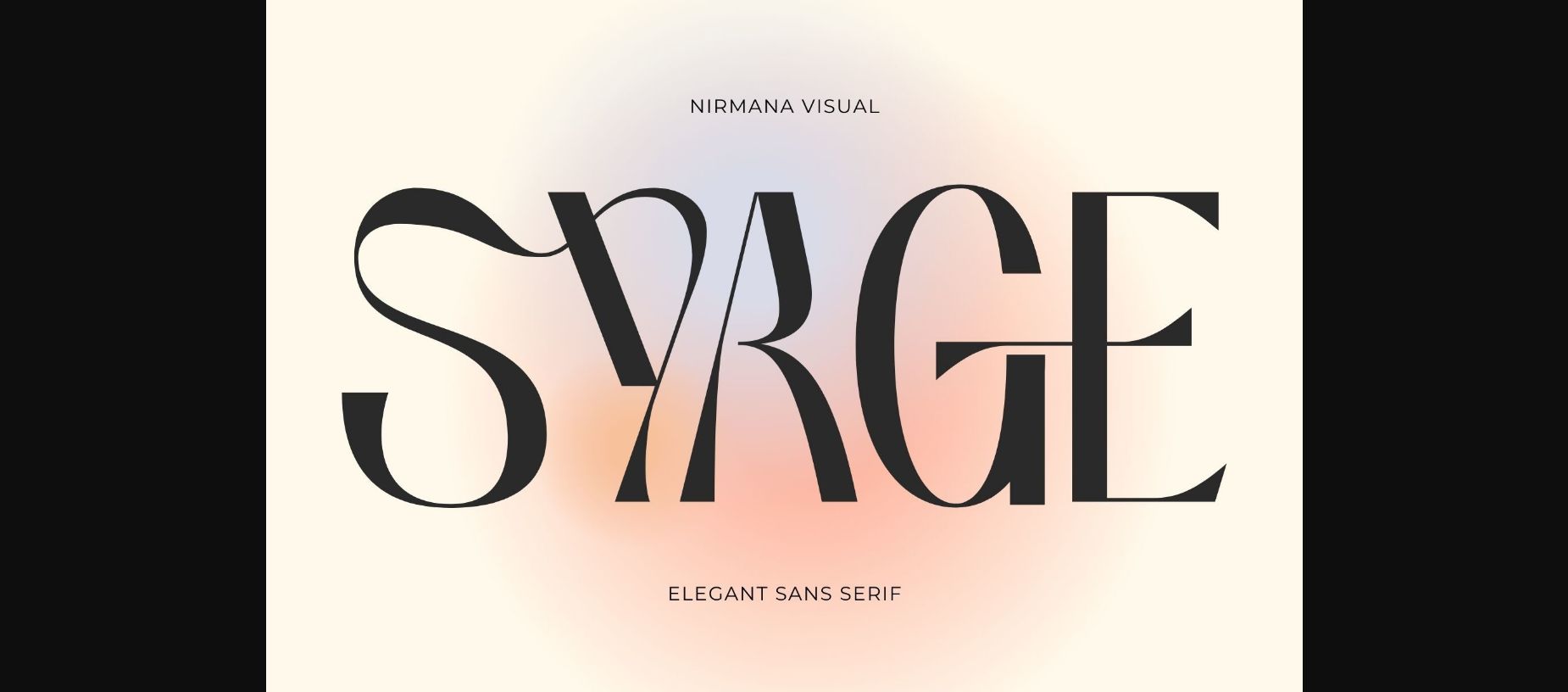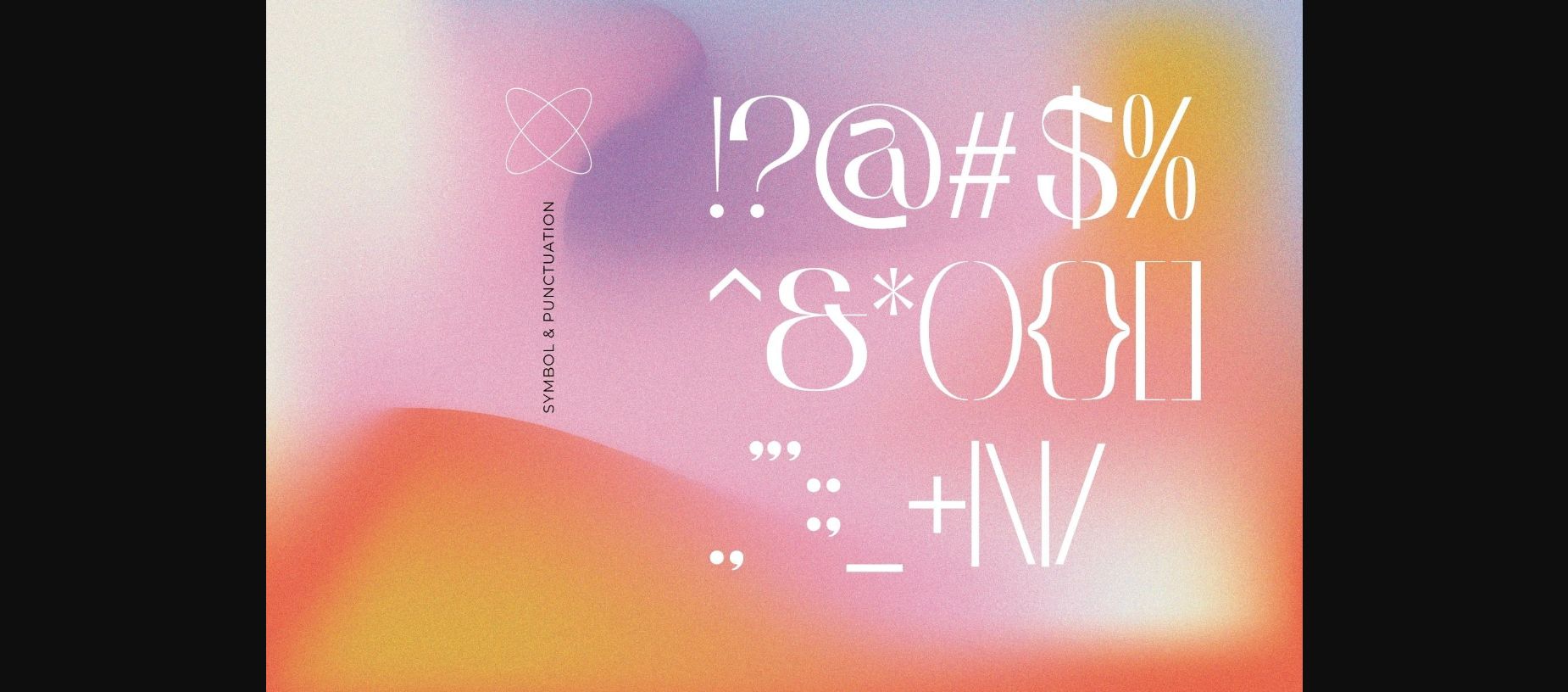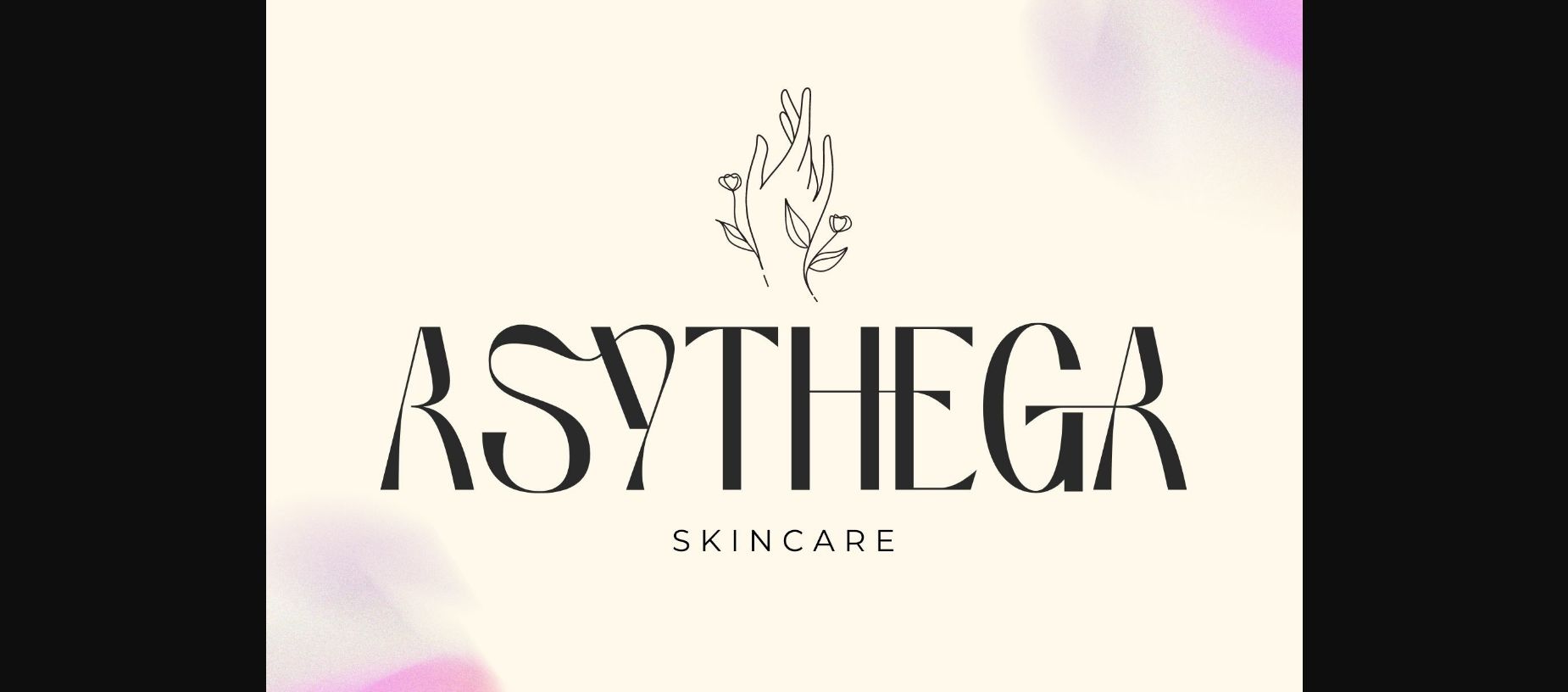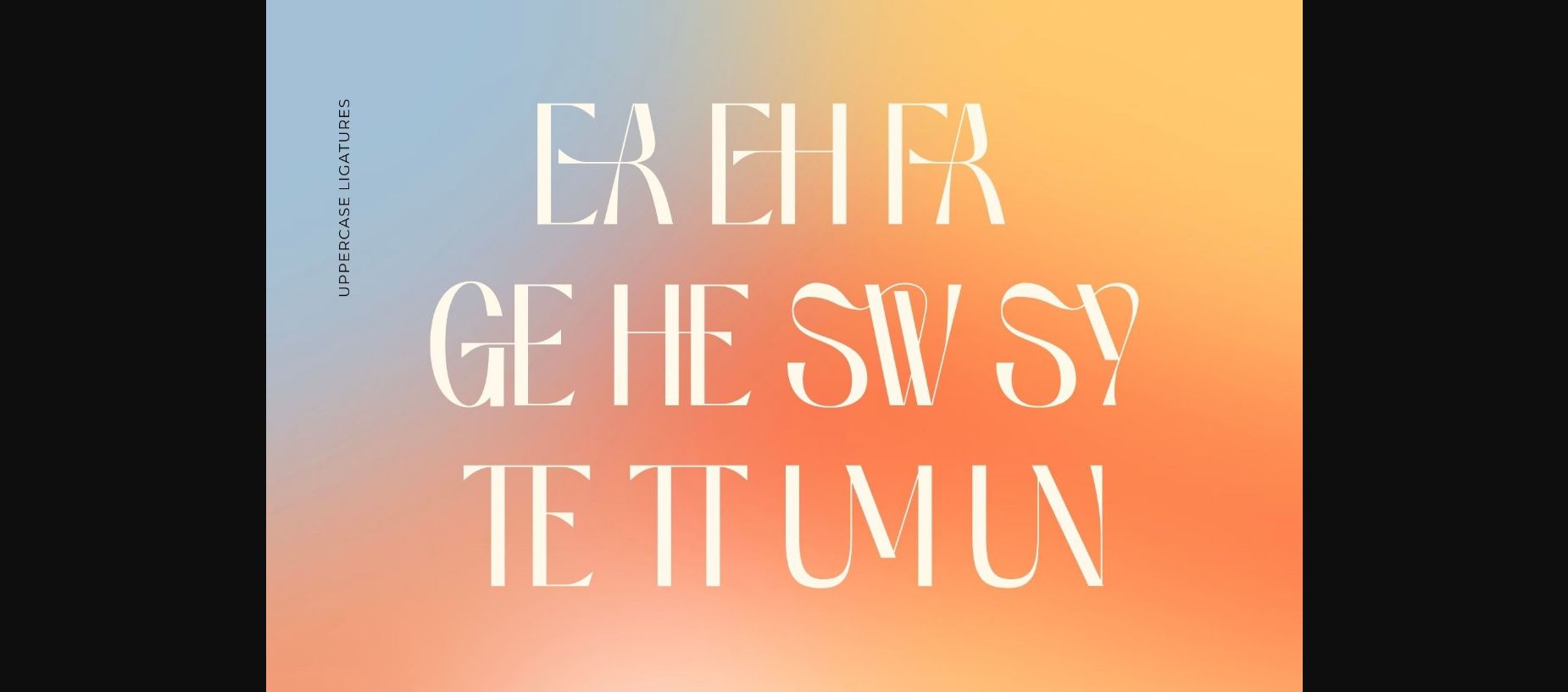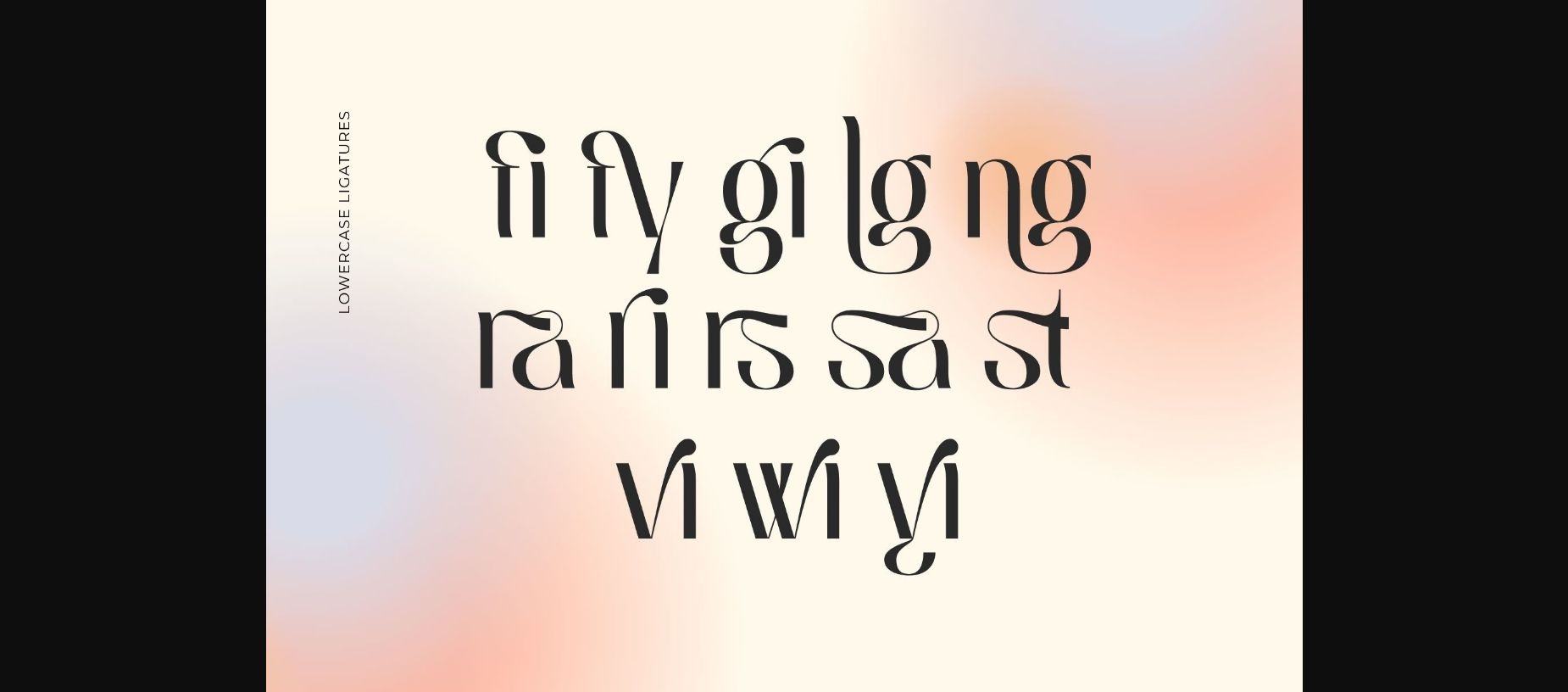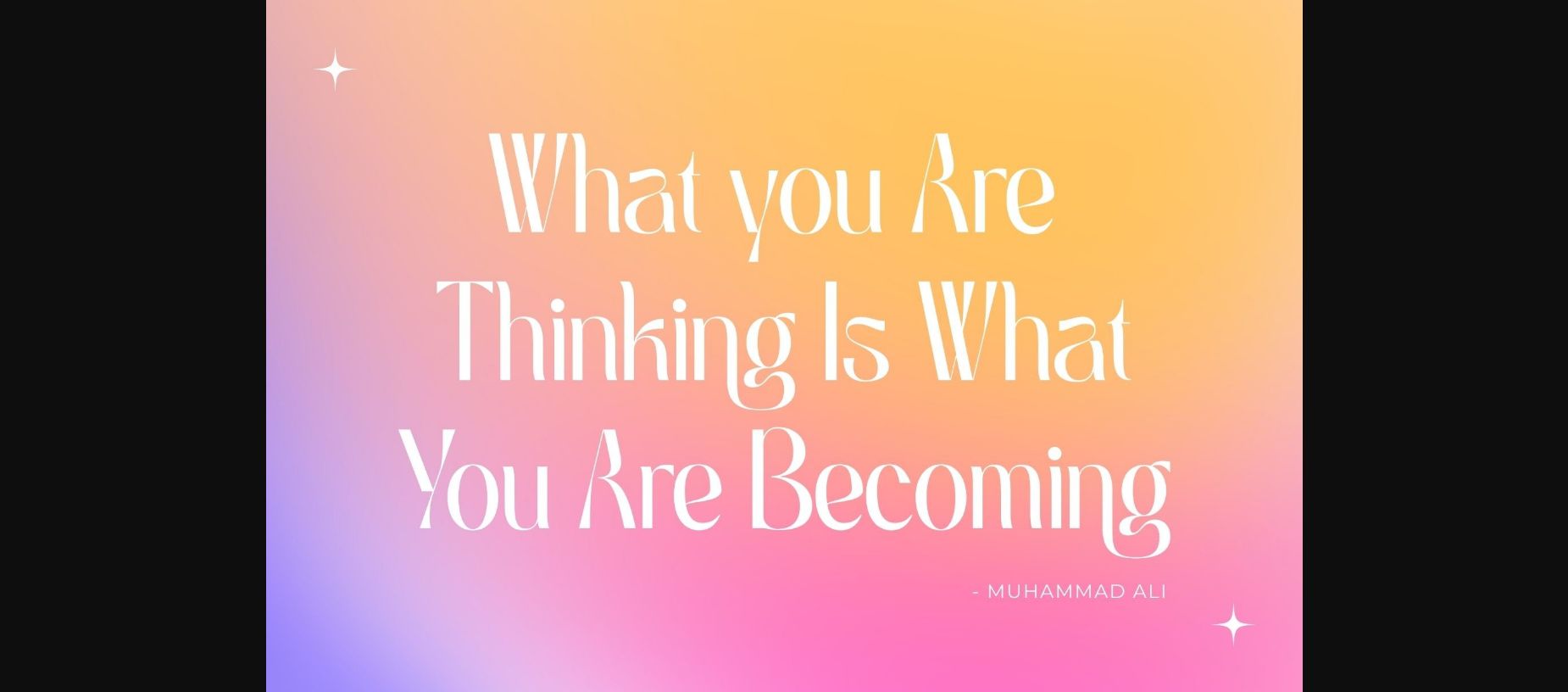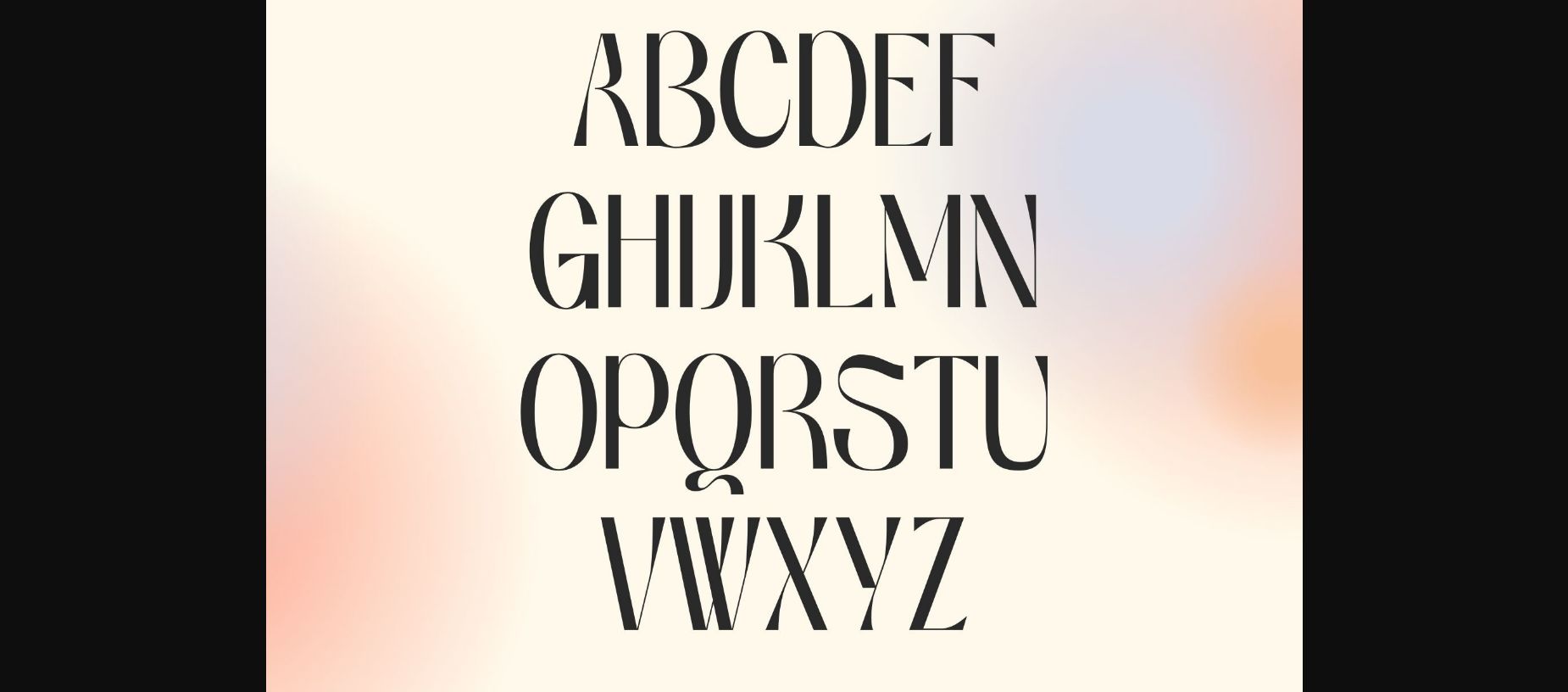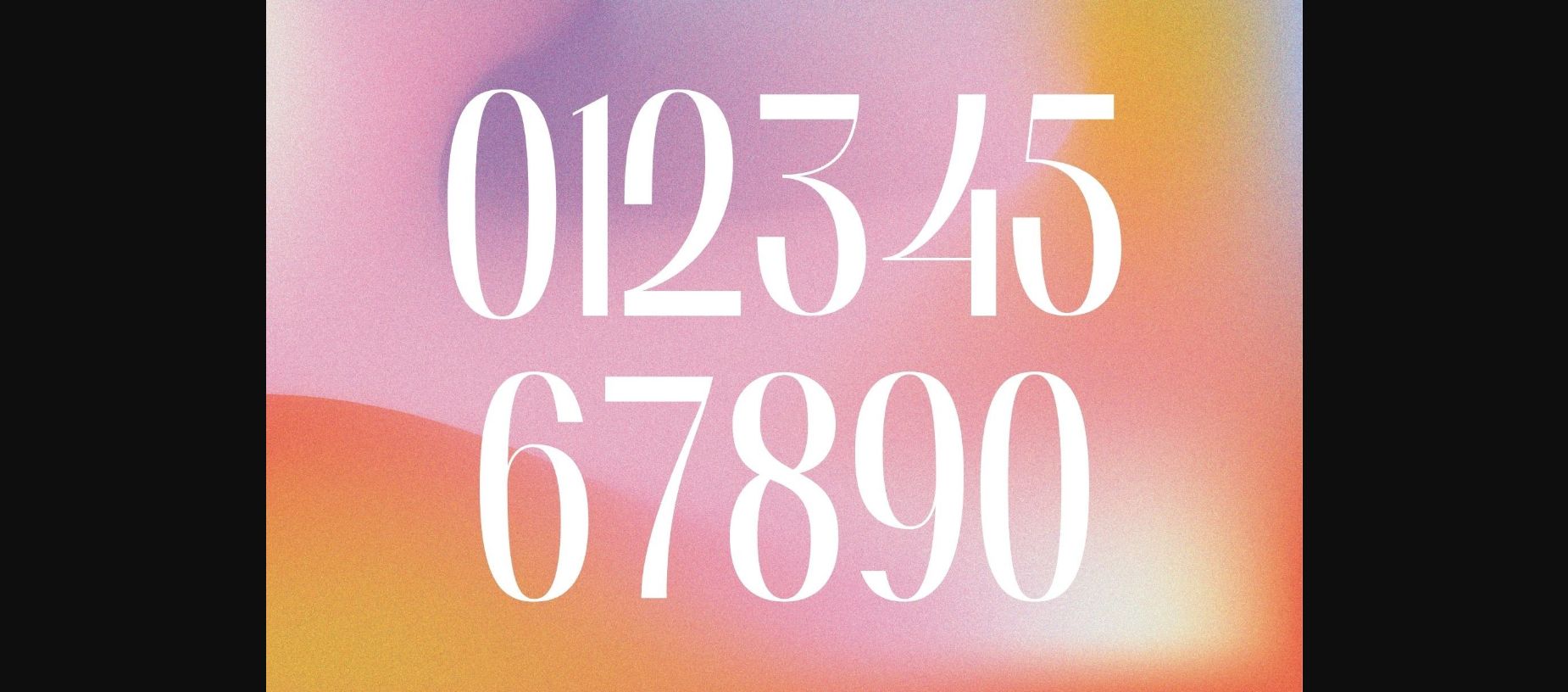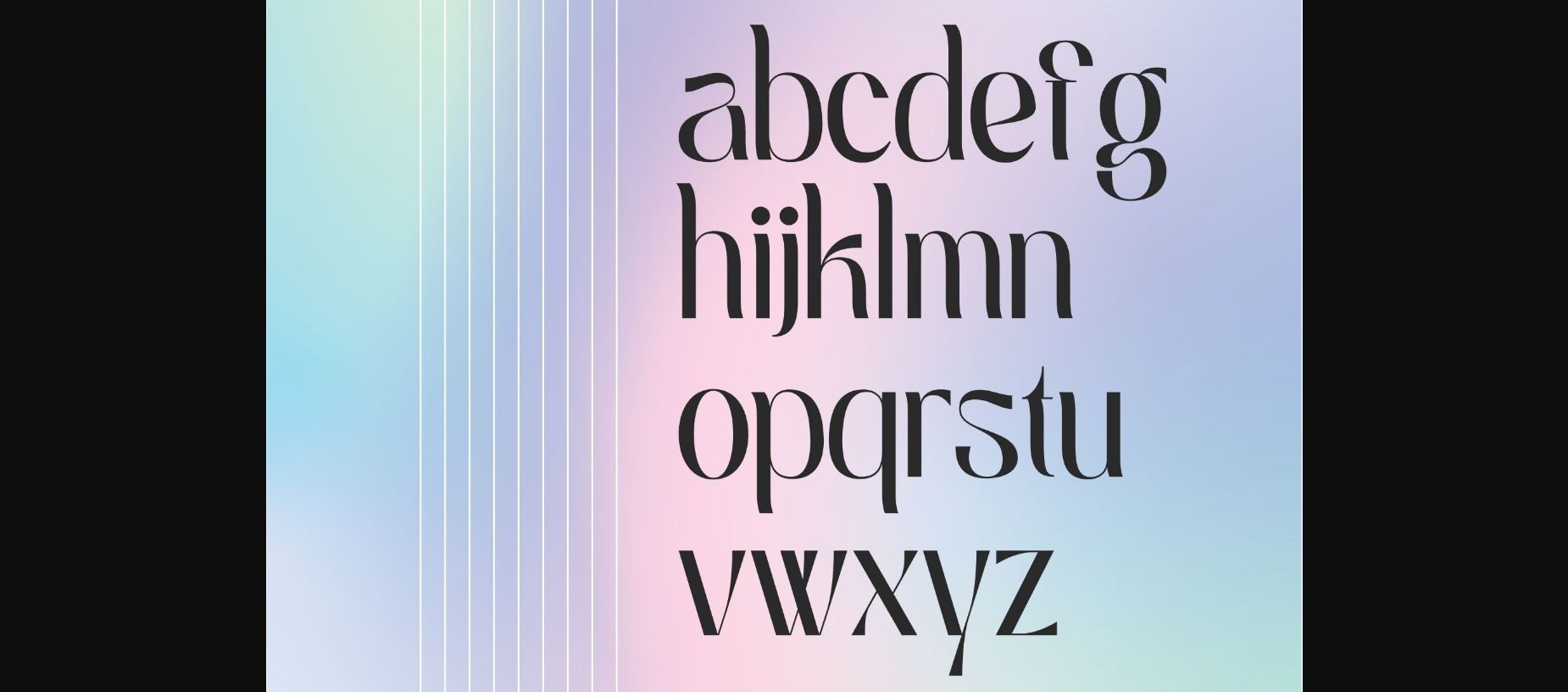
Syage Font
About Syage Font
Syage is a sans serif and modern font combined with a sweet touch and beautifully curved letters, using a touch of soft curves so that it is pleasing to the eye.